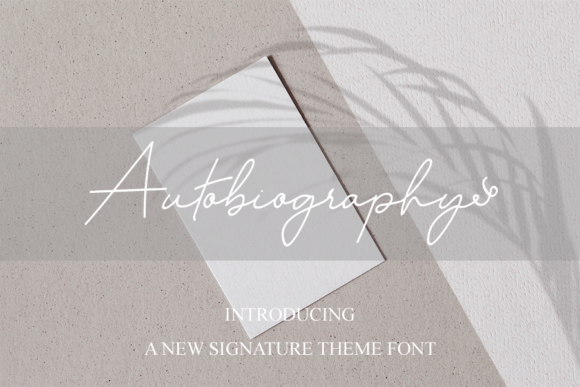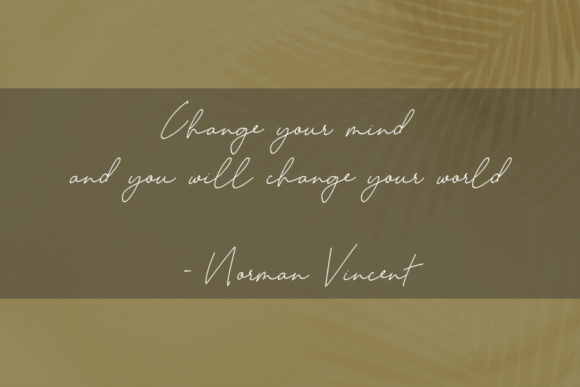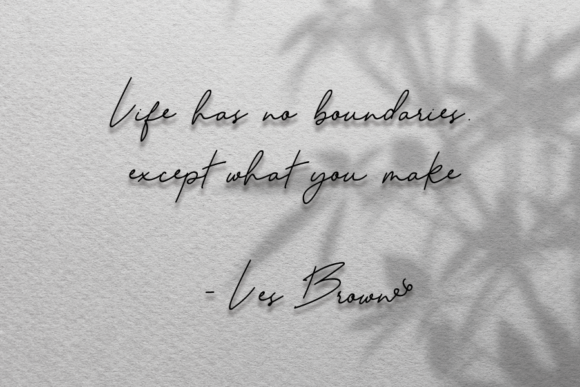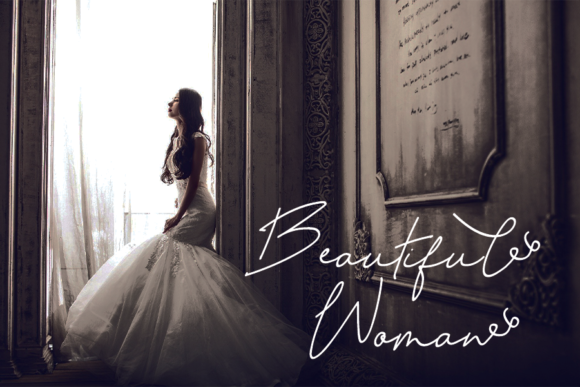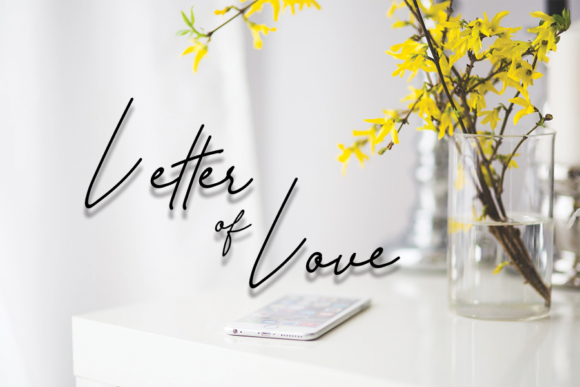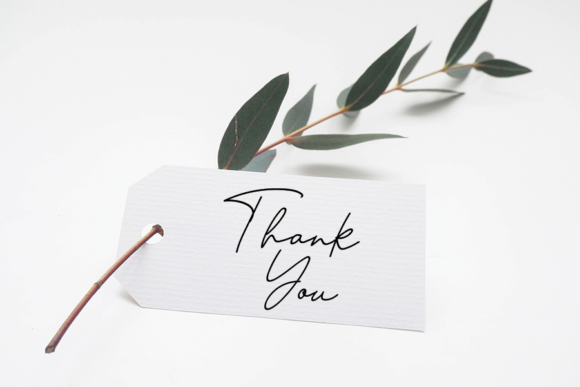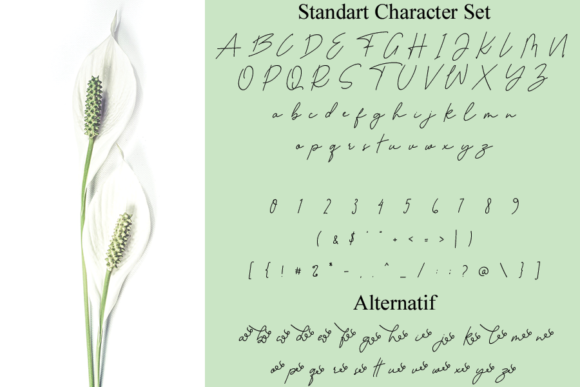
Autobiography Font
About Autobiography Font
Autobiography is a fashionable script font. This font is neatly crafted and highly detailed. Whatever the topic, this font will be a wonderful asset to your font library, as it has the potential to enhance any creation.